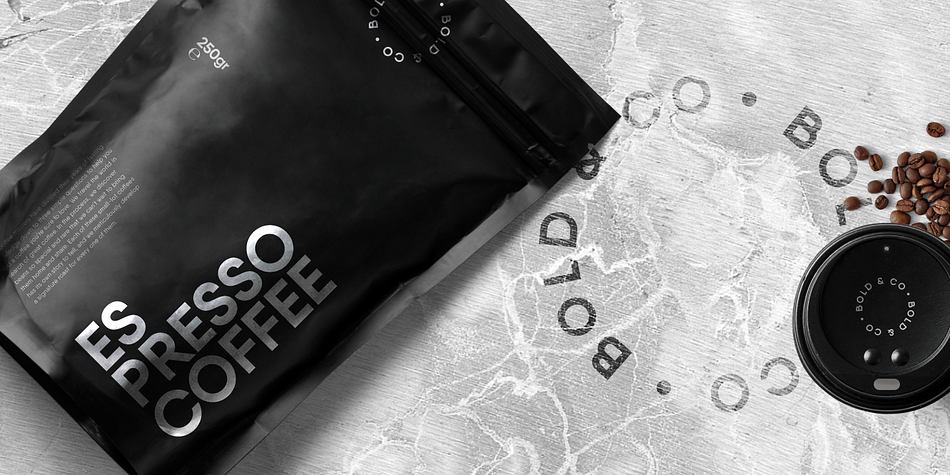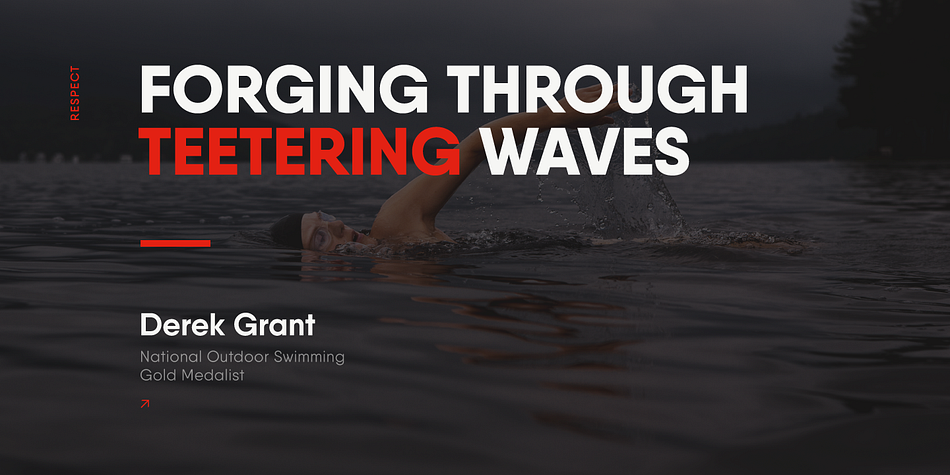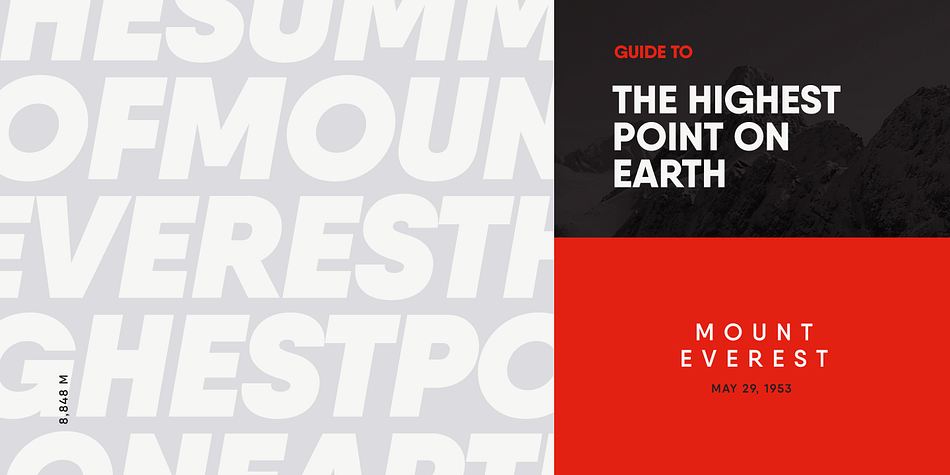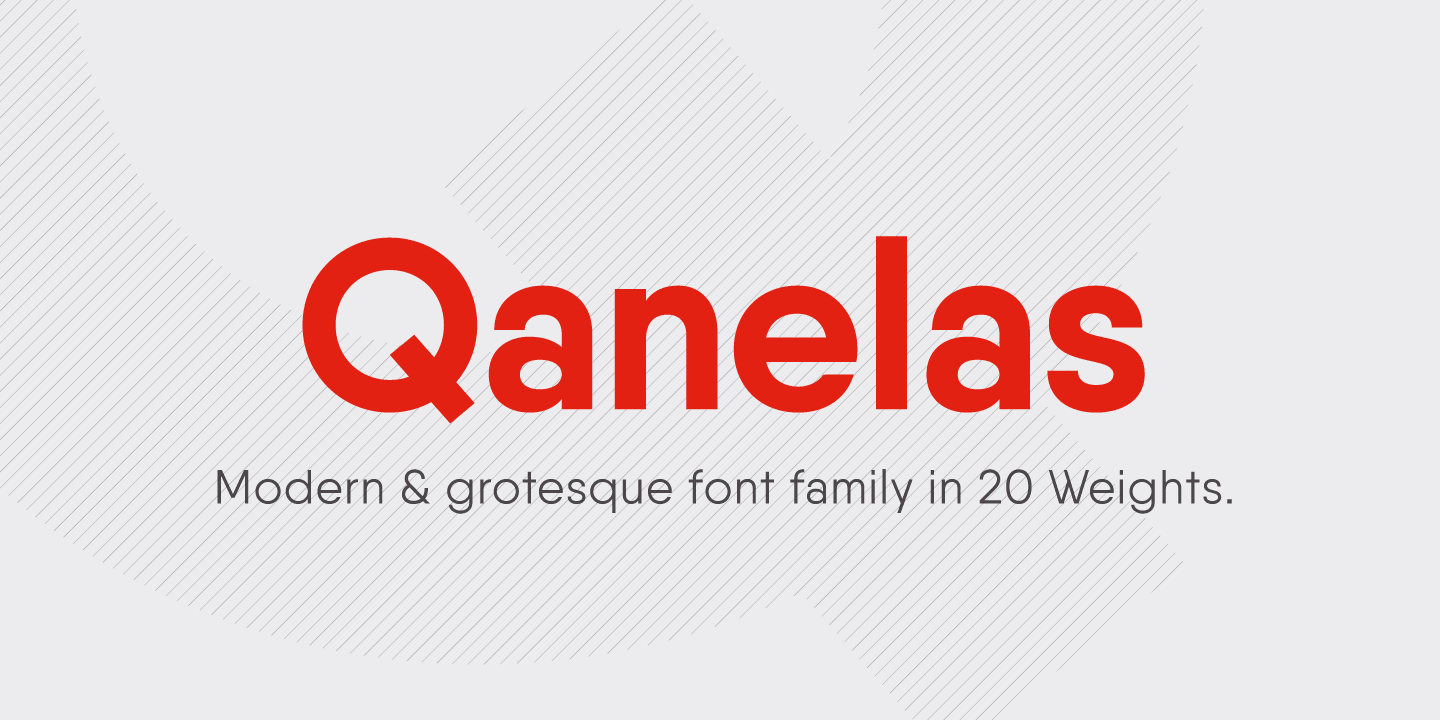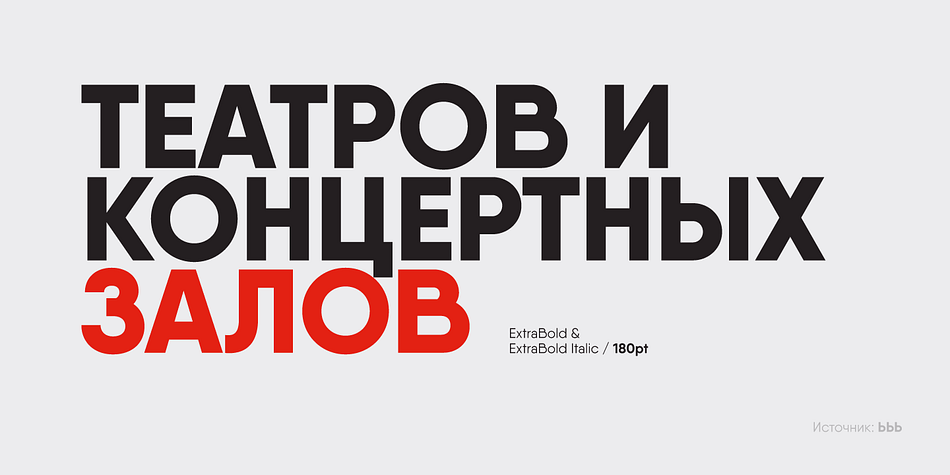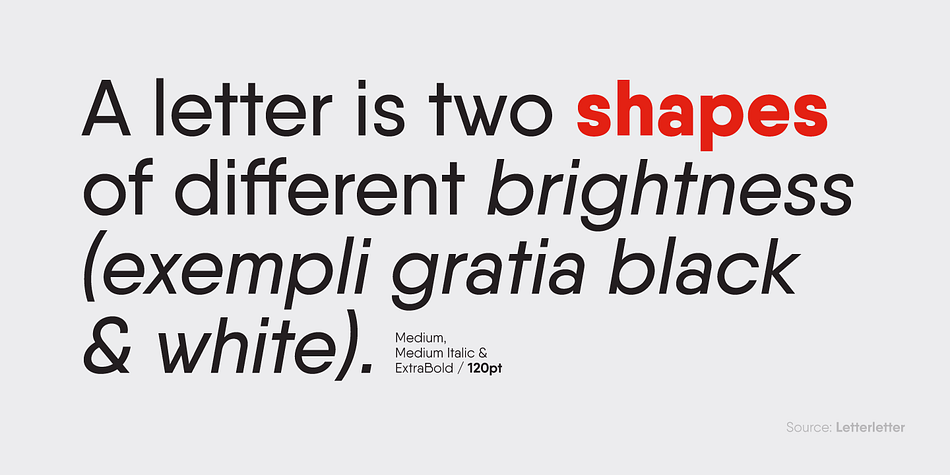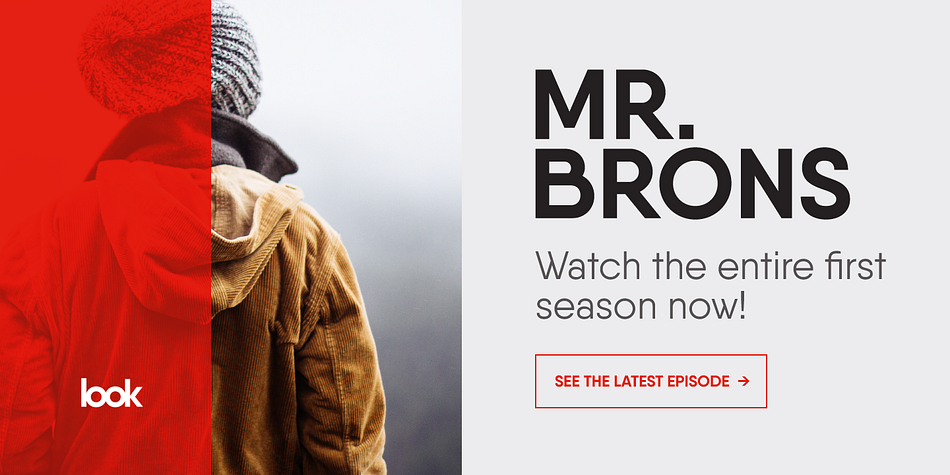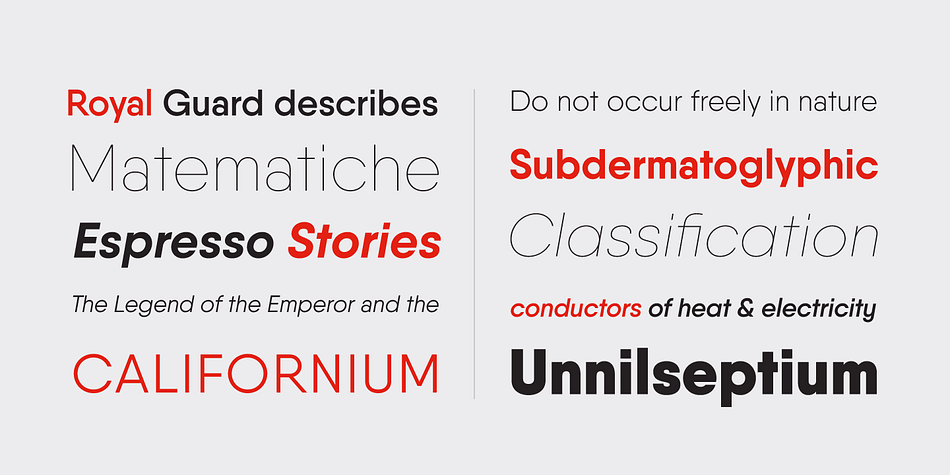
Designed by Radomir Tinkov, Qanelas is a sans serif font family. This typeface has twenty styles and was published by Radomir Tinkov.
Qanelas is a modern sans serif with a geometric touch. It comes in 20 weights, 10 uprights with matching italics.
Designed with powerful OpenType features in mind, each weight includes alternate characters, fractions, extended language support (+ Cyrillic), arrows, ligatures, and more. Perfectly suited for graphic design and any display use. It could easily work for web, signage, corporate as well as for editorial design.